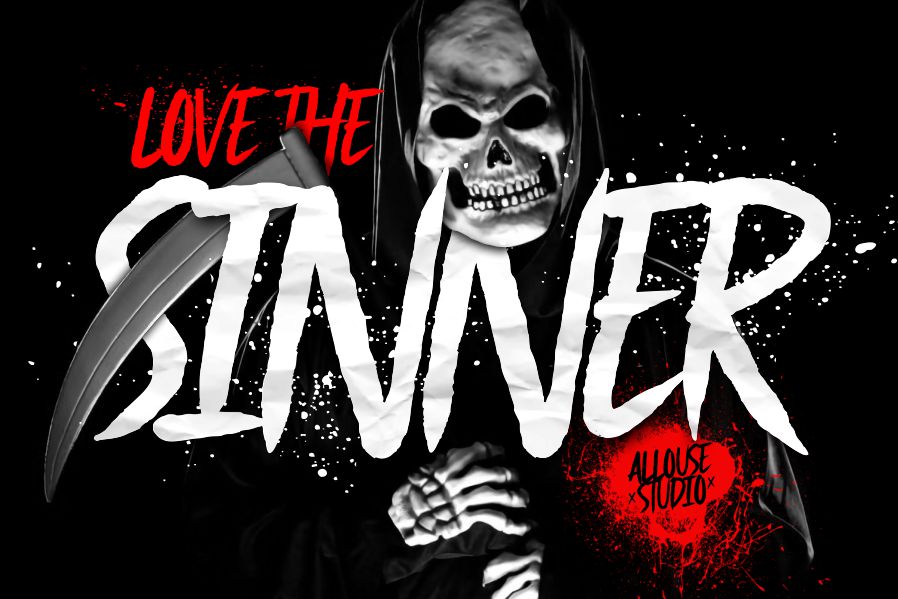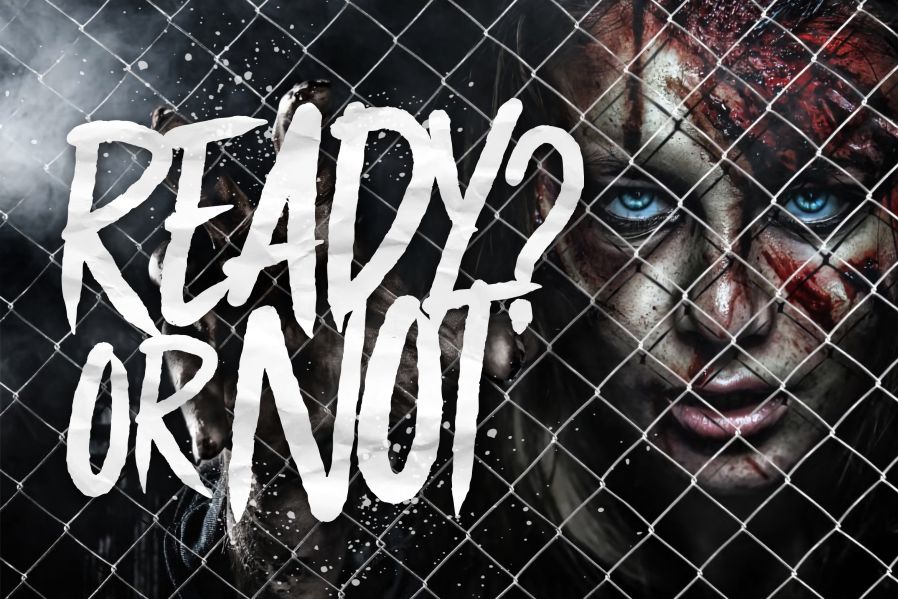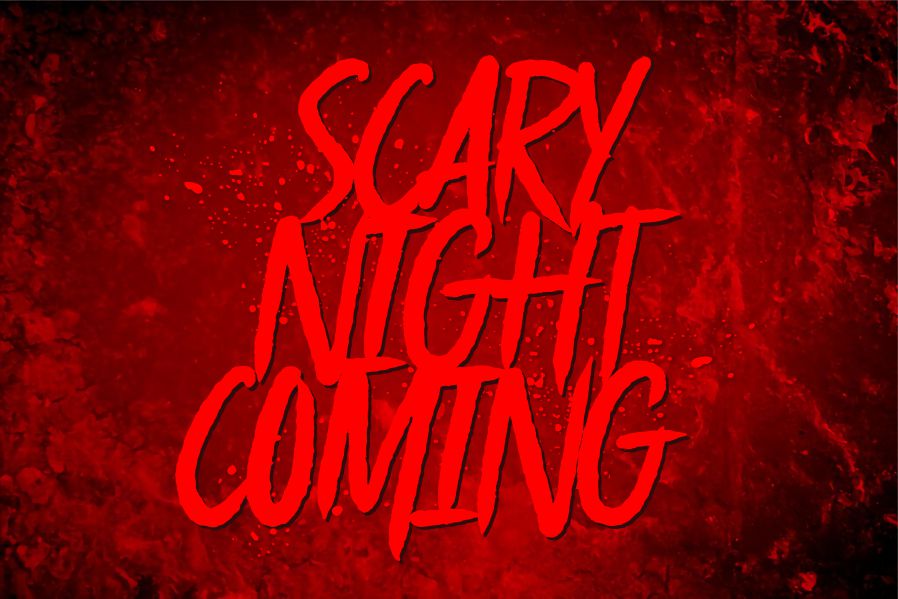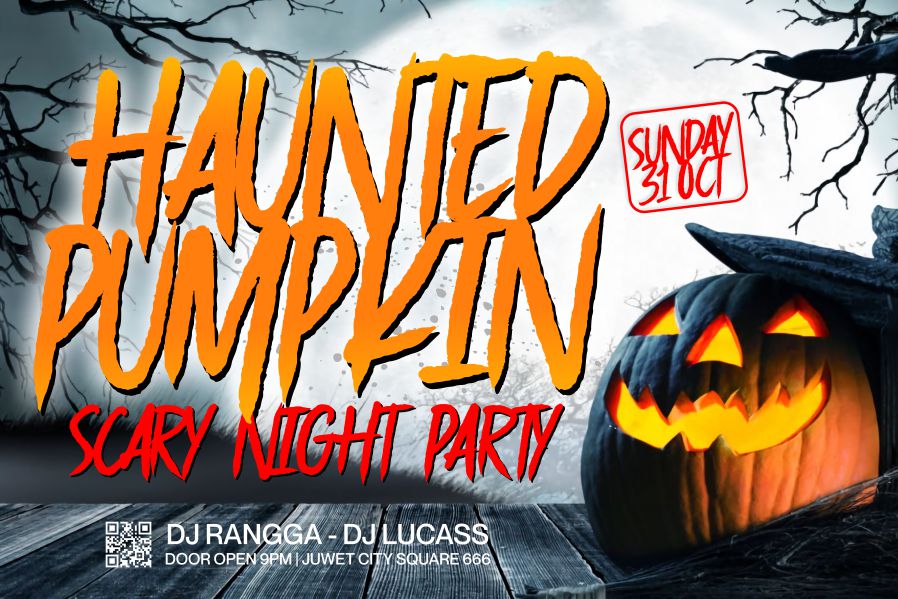
Blackmourn Font
Blackmourn Display Font is a Handbrush Horror Font. Blackmourn is perfect for product packaging, branding project, megazine, social media, wedding, or just used to express words above the background.